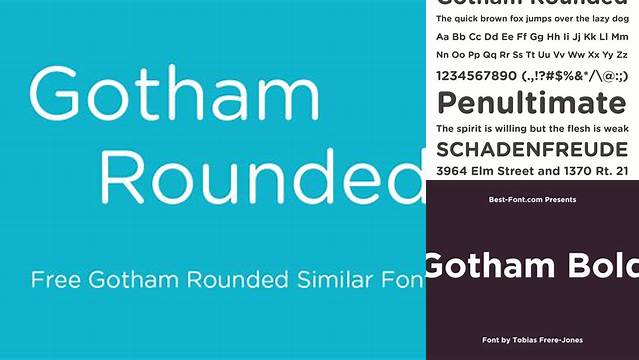
Gotham Rounded Bold: What Makes it Special?
First things first, what makes the Gotham Rounded Bold font so special, right? Well, this font is essentially a softer, friendlier version of the classic Gotham typeface. Gotham itself is super popular, known for its clean lines and geometric shapes. It's used everywhere, from websites to billboards. The Gotham Rounded Bold takes all that goodness and adds a touch of warmth with its rounded terminals. This makes it incredibly versatile, perfect for everything from headlines to body text, and even logos. The bold weight adds a strong presence, making your text pop and grab attention. It's a great choice if you want a font that's both stylish and easy to read. Plus, the rounded corners give it a modern, approachable vibe that's hard to resist. You'll find it's particularly effective for projects where you want to convey a sense of friendliness, trustworthiness, or just a bit of playful style. Think about it – how many fonts can seamlessly work on a corporate website and also look amazing on a fun, creative poster? Gotham Rounded Bold can! It is also great for branding. Many companies choose this font because of the unique characteristics it possesses. Using it allows you to convey the message in a way that customers can easily understand and also feel connected. It makes the company's branding look appealing.
It's not just about aesthetics; the font's readability is a major selling point. In today's world, where we're bombarded with information, it's vital to have fonts that are easy on the eyes. The Gotham Rounded Bold achieves this through its clear letterforms and consistent weight distribution. This is essential if you're using the font for longer blocks of text. Furthermore, the variety of weights available for Gotham, including bold, allows you to create a hierarchy of information. Use the bold version for headings and subheadings to draw attention, and the regular or light weights for body text to maintain a consistent flow. The versatility of the font extends beyond simple projects. It works seamlessly with graphic design programs such as Adobe Photoshop, Illustrator, or Canva. So, whether you're a seasoned designer or a beginner, you'll find it easy to incorporate into your workflow. In summary, the unique design of Gotham Rounded Bold, along with its versatility and readability, makes it a standout choice. You can't go wrong with this font!
Gotham Rounded Bold Font vs. Similar Fonts
So, you've got the Gotham Rounded Bold, but what if you are looking for something a little different? Or, maybe you can't find it, or it's not quite what you need? Let's explore some fonts that are similar to it. This way, you have a range of options available. First up, we have Lato. Lato is a sans-serif font with a clean, modern look. It is a great alternative because it offers similar readability and versatility. It can be used for anything, including headlines, body text, and even in logos. It’s a great choice if you're looking for something modern but not quite as rounded as Gotham Rounded Bold. Another font to consider is Open Sans. Open Sans is another popular choice known for its legibility. It's a humanist sans-serif font that is perfect for web design. It is an excellent alternative because of its neutrality. It is easy on the eyes and looks great across different media. If you are looking for something a bit more geometric, check out Raleway. Raleway has a modern, clean design with elegant letterforms. It's known for its stylish design, so it is perfect for projects where you want to make a statement. However, while its a great font, it might not be the best option for blocks of text.
Another alternative is Montserrat. Montserrat has a geometric look with a clean design. It’s inspired by the urban typography of the Montserrat neighborhood in Buenos Aires. It is a great option if you want to add a unique touch to your design. Additionally, it is a very readable font, making it a perfect choice for web and print projects. Also, check out Nunito. Nunito is a well-balanced sans-serif font. Its rounded terminals give it a friendly feel. It's also a great option for web design and other creative projects. When choosing between these different fonts, consider the overall tone of your project. Do you want something formal, friendly, or modern? Think about how readable each font is, and whether it fits the design's aesthetic. Testing out the different fonts is always a good idea! Try them out in your design and see which one suits your project the best. Finally, remember to consider the license of the font you are using, especially if it's for commercial use.
Utilizing Gotham Rounded Bold in Your Designs
Alright, you've got your free Gotham Rounded Bold font, now what? Let’s talk about how to use it effectively in your designs. Firstly, consider its versatility. This font shines in a variety of applications. For headlines, the bold weight commands attention and makes a clear statement. For body text, its rounded design gives a softer, more approachable feel. This means it is great for websites, brochures, posters, and any project where you want to strike a balance between style and readability. When designing with Gotham Rounded Bold, think about how you want to use it. You can use it as a main font or complement it with other fonts. A classic pairing involves using Gotham Rounded Bold for headlines and a more traditional sans-serif or serif font for body text. This contrast helps to establish a visual hierarchy, drawing the eye to the important information first. It is also crucial to consider your color scheme. The font looks great with various colors, but you should avoid colors that can make it hard to read. If you are using the font on a website, make sure the color choices will ensure good contrast and readability across all devices. With the help of a good color combination, the font will look amazing. Furthermore, pay attention to the spacing and layout. Good spacing is key to creating a pleasant visual experience. Experiment with line spacing, letter spacing, and text alignment. A bit of extra breathing room between the letters and lines of text will go a long way in improving readability, especially when the font is used for long-form content. Similarly, text alignment plays a crucial role. Justified text can create a more formal feel, while left-aligned text offers a more relaxed and accessible feel. Lastly, make sure to test your designs on different devices. This is to see how the font appears on different screens and sizes. What looks great on a desktop might not look as appealing on a mobile device. So, always test and adjust your design accordingly.
In this guide, we've explored the Gotham Rounded Bold font – a cool, versatile typeface perfect for various design projects. We covered what makes this font unique. Its rounded design, clean lines, and bold weight create a modern yet approachable look. We discussed where you can find a free Gotham Rounded Bold font download. We discussed the importance of checking licensing, and being cautious when downloading fonts from online sources. We highlighted the similarities and differences between Gotham Rounded Bold and other fonts, such as Lato, Open Sans, Raleway, Montserrat, and Nunito. We also looked at the different weights of the font. We have reviewed how this font can be effectively used in various designs. We discussed practical tips for using the font in web design, print design, and logo design. Understanding the licenses and potential problems, we also looked at how to troubleshoot issues with the font. We explored the historical inspiration behind the font, and its evolution. We also talked about the font's use in logos and other branding. In essence, this guide is intended to provide you with a complete understanding of the font. We want to give you the knowledge, and resources, you need to use it in your projects. By following the guidelines, you'll be able to enhance your designs and reach your desired design goals. So go ahead, download the font and start creating!